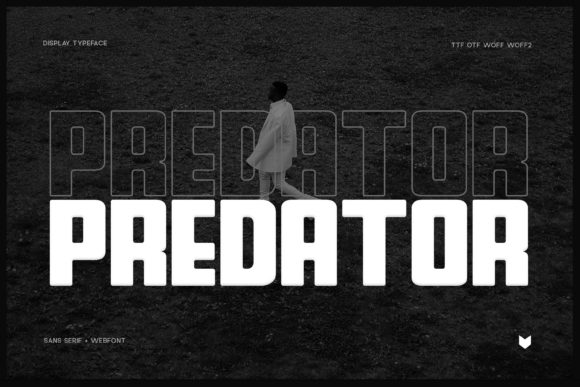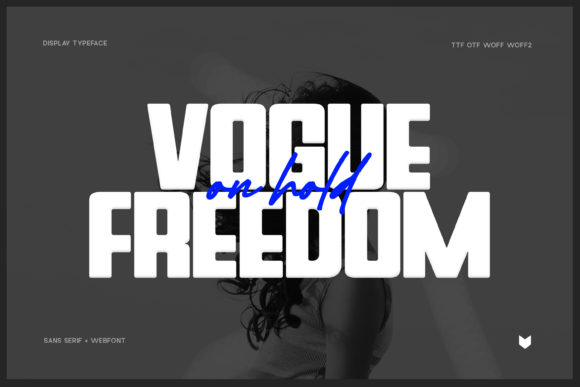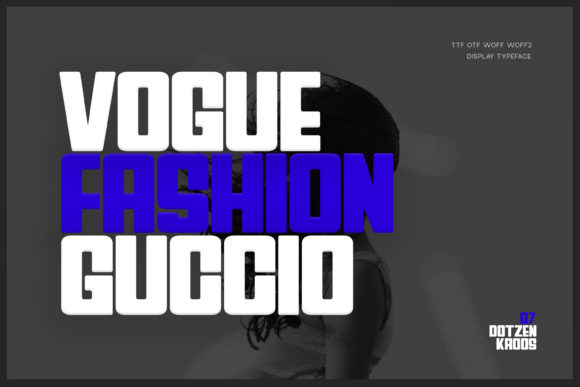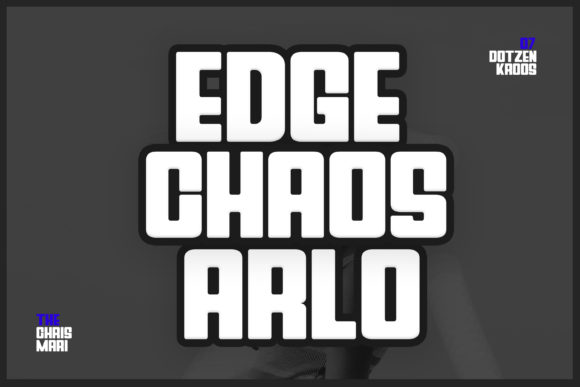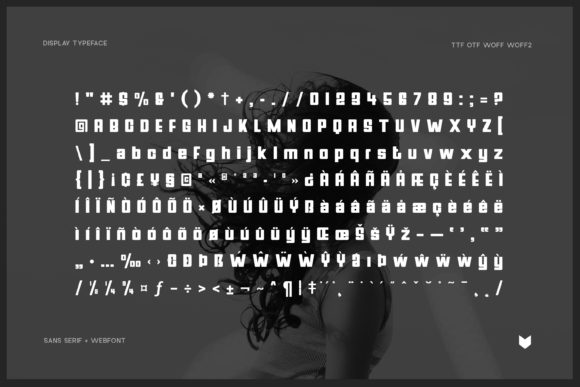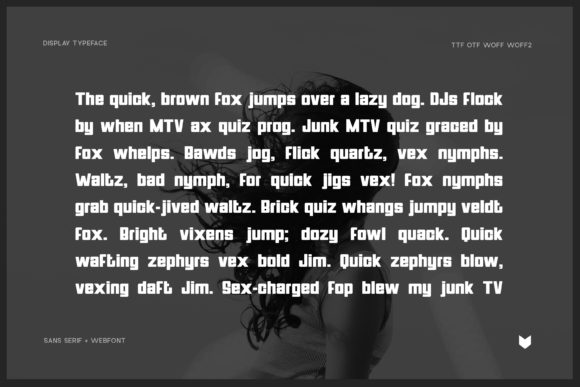
The Designer’s Delight: Uncovering the Power of Divock Font
I’ll never forget the time I was working on a branding project for a trendy new cafe. My client wanted a bold, eye-catching font that would make their logo stand out, but I was struggling to find the perfect one. That’s when I stumbled upon Divock Font, and it instantly became my go-to choice. In this article, I’ll share my experience with Divock, its features, and how to make the most of it in your designs.
An Honest Review of Divock Font
So, what makes Divock Font so special? Let’s dive into the good stuff and a few quirks I’ve discovered.
What I Love About Divock Font
- ✨ Bold and Assertive: Divock Font is perfect for making a statement. Its thick, bold letters demand attention and exude confidence.
- ✅ Versatile: Whether you’re designing a website, business card, or social media post, Divock Font adapts seamlessly to various contexts.
- 💡 Easy to Read: Despite its boldness, Divock Font remains surprisingly legible, even at smaller sizes.
While Divock Font is an excellent choice, there are a few things to keep in mind:
- 🤔 Limited Emotional Range: Divock Font is a bold, assertive font, but it may not be the best fit for designs requiring a softer or more playful tone.
- ⚠️ Overuse: As with any bold font, be cautious not to overuse Divock Font, as it can quickly become overwhelming.
- Experiment with OpenType features like ligatures and stylistic alternates to add visual interest.
The Story Behind Divock Font
While the origins of Divock Font are shrouded in mystery, it’s clear that the designer aimed to create a bold, attention-grabbing font. Perhaps the designer was inspired by modernist art movements or wanted to create a font that would stand out in a crowded design landscape. Whatever the motivation, Divock Font has become a go-to choice for designers seeking a bold, assertive look.
| Font Name | Divock Font |
| Author | Foxtype |
| What is Divock Font best used for? | Divock Font is ideal for designs requiring a bold, assertive touch, such as logos, headings, and titles. |
| Is Divock Font suitable for body text? | While Divock Font is legible, it’s not the best choice for body text due to its boldness. Use it for headings and titles instead. |
| Is Divock Font available in different weights? | Divock Font may come in various weights or styles, but its core personality remains bold and assertive. |